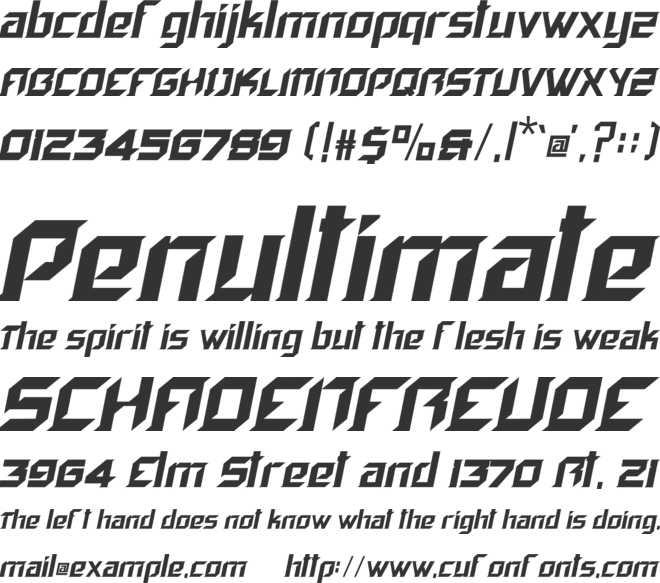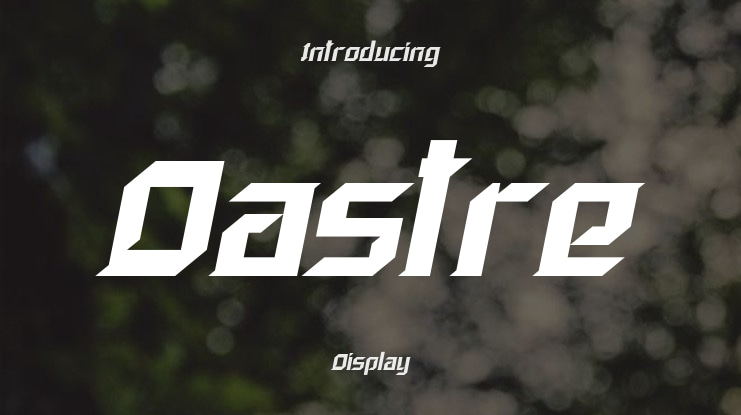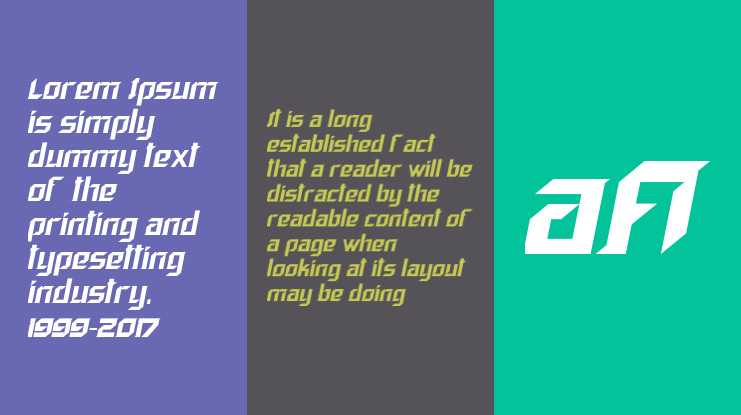
Dastre Font
Dastre is specially designed with a strong racing style, highlighting the impression of speed, strength, and high adrenaline. The letter design appears firm, sharp, and modern, with italic elements and aerodynamic line cuts—depicting the speed of the vehicle at high speed.